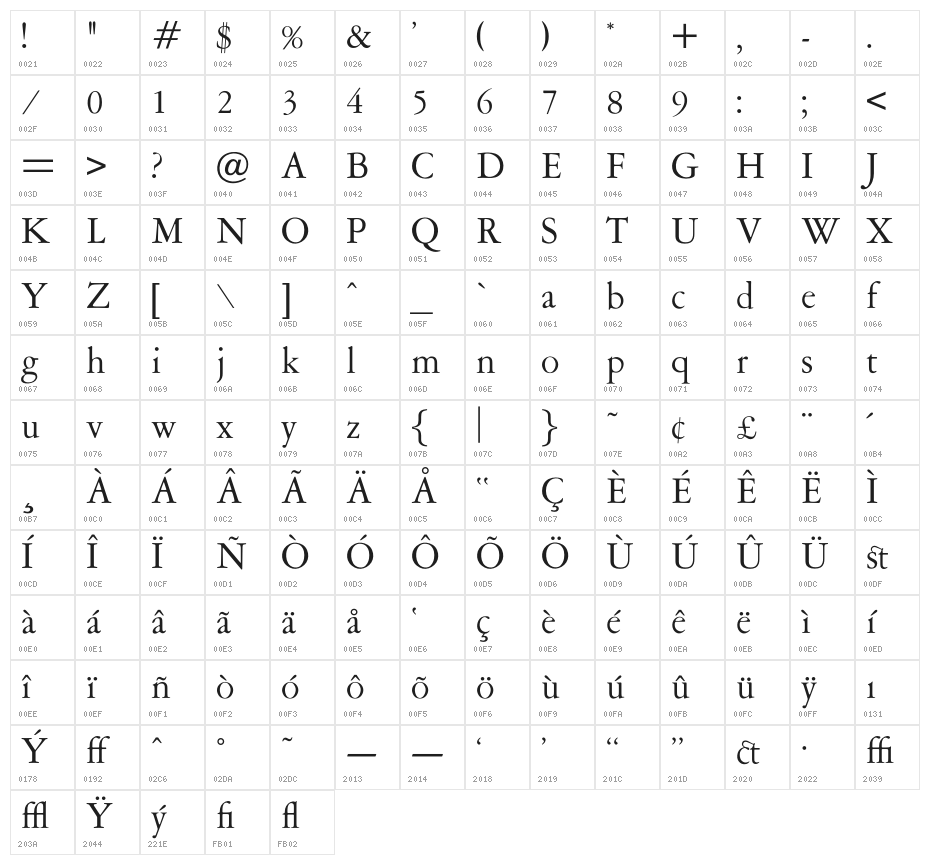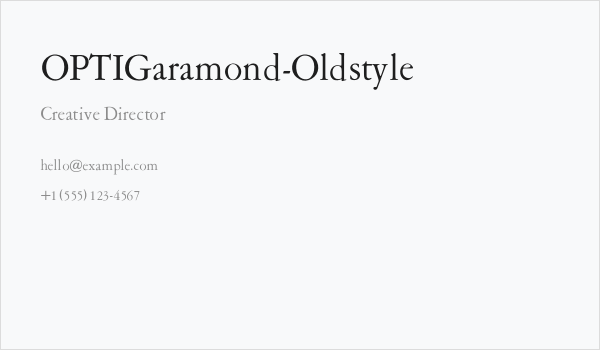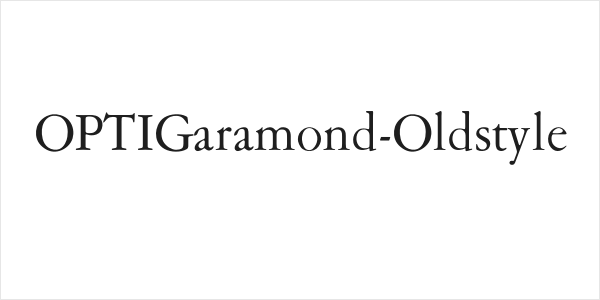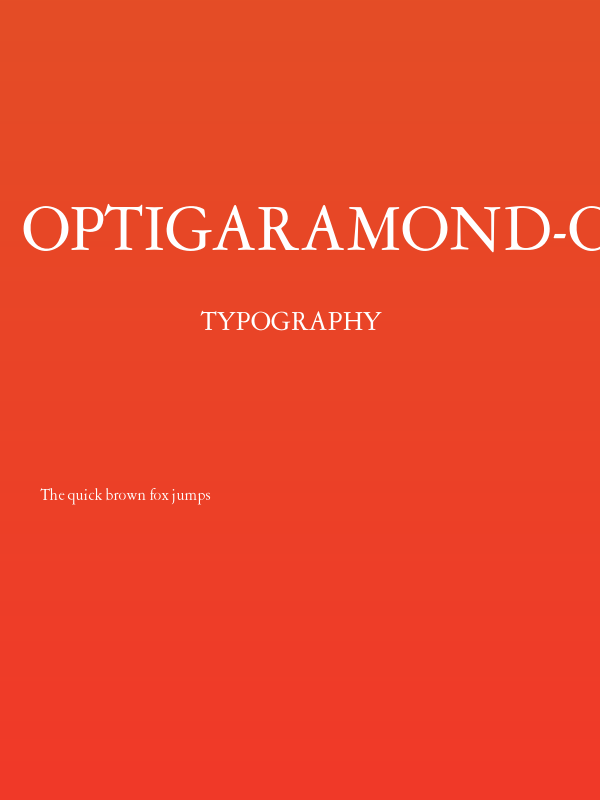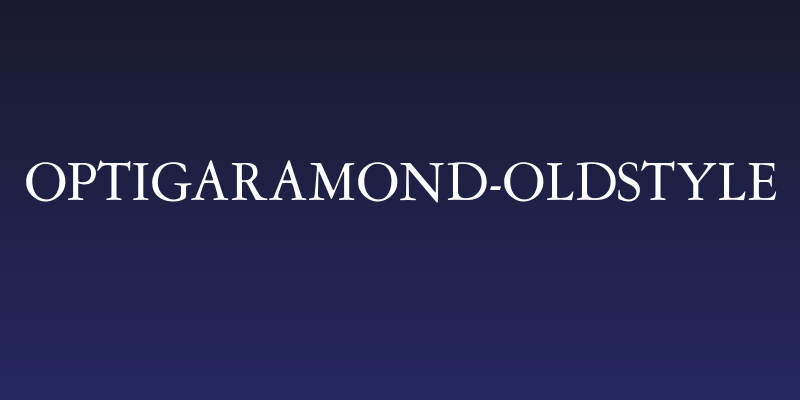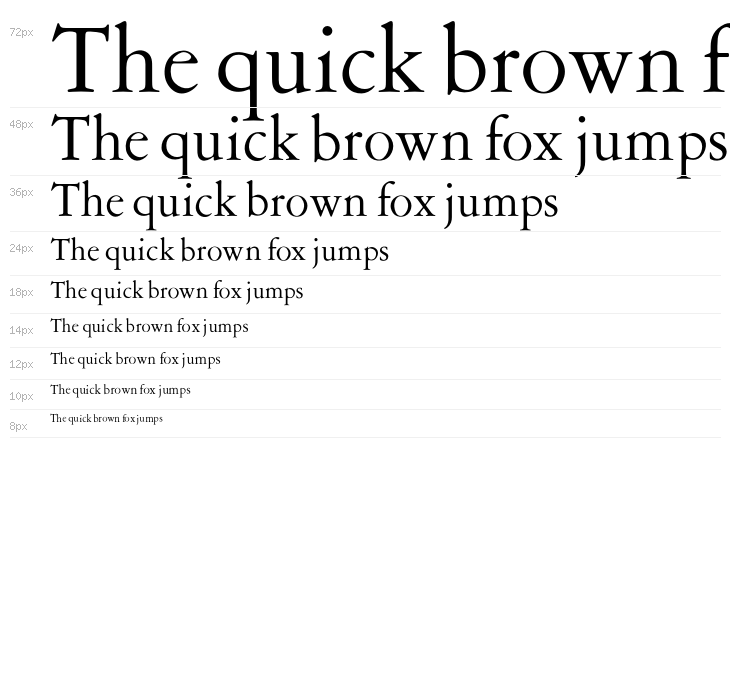
OPTIGaramond-Oldstyle Font
OPTIGaramond-Oldstyle Description
This font embodies a classic and elegant serif style, characterized by its refined and sophisticated appearance. The letterforms exhibit a harmonious balance between thick and thin strokes, providing a medium contrast that enhances readability while maintaining a timeless aesthetic. The serifs are gracefully bracketed, adding a touch of traditional charm. The overall design is well-suited for conveying a sense of history and prestige, making it ideal for formal and literary contexts. The spacing between characters is normal, ensuring clarity and legibility across various applications.
| Use Case | Body text, Headlines, Logos |
| Proposed Projects | Ideal for book publishing, formal invitations, historical documents, and branding that requires a touch of sophistication. |